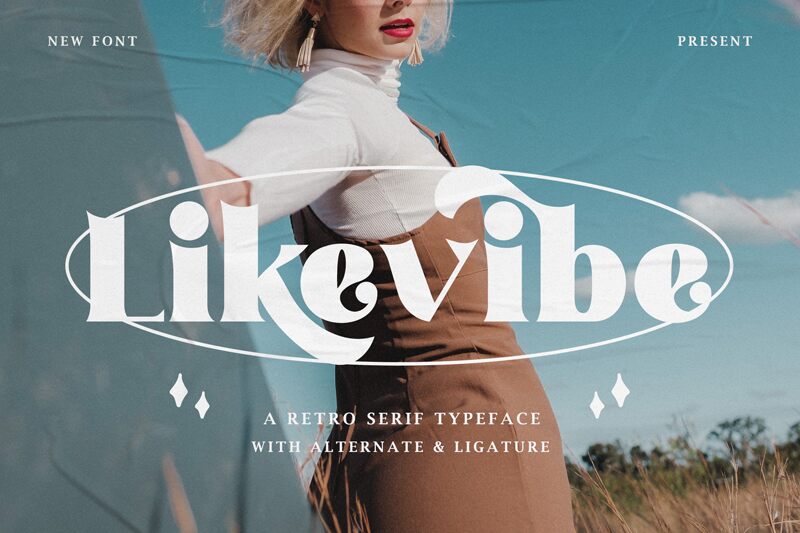
Likevibe by Typefactoryco exudes a charming retro flair, blending the nostalgic essence of vintage design with a dash of cuteness and elegance. This bold display font captivates with its cheerful personality, infusing projects with life and energy. It stands out as distinctive, making it perfect for designs that require a touch of classic sophistication paired with an inviting warmth.
Ideal for branding, packaging, or any creative endeavor that benefits from an affectionate and timeless touch, Likevibe promises to be a delightful addition to your typographic toolkit. Its memorable style ensures that your work will resonate with a vibe that feels both familiar and fresh.